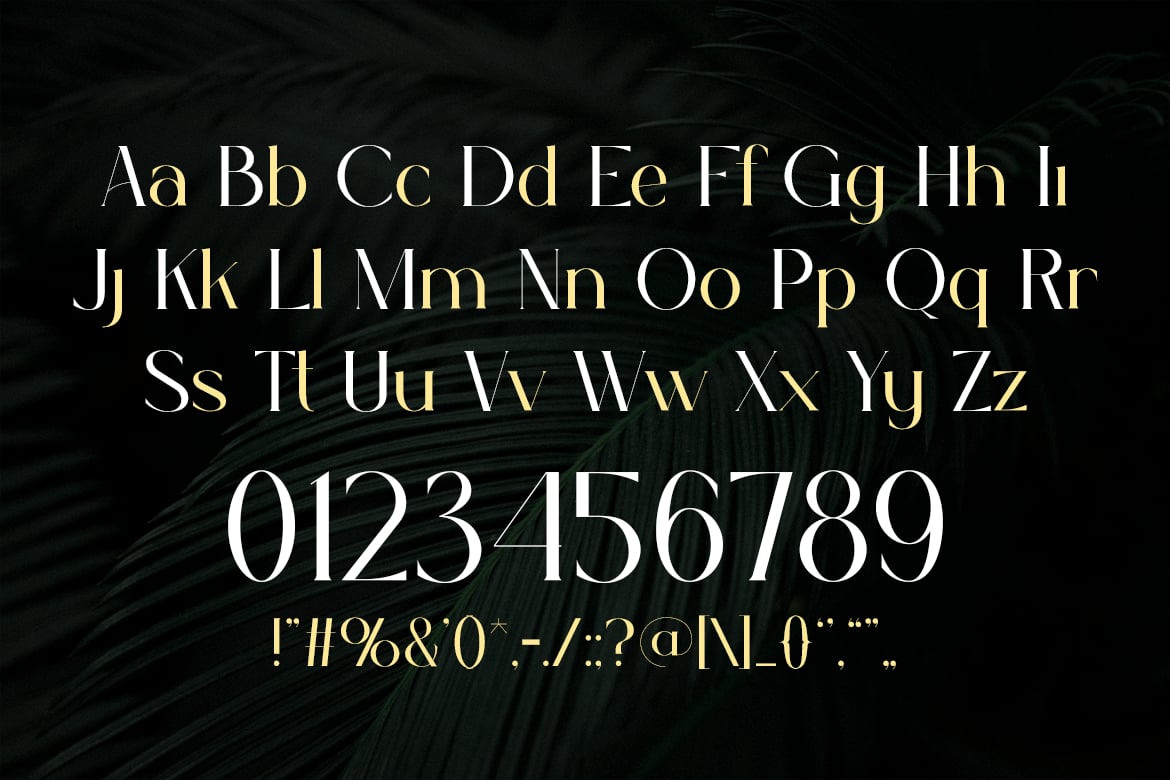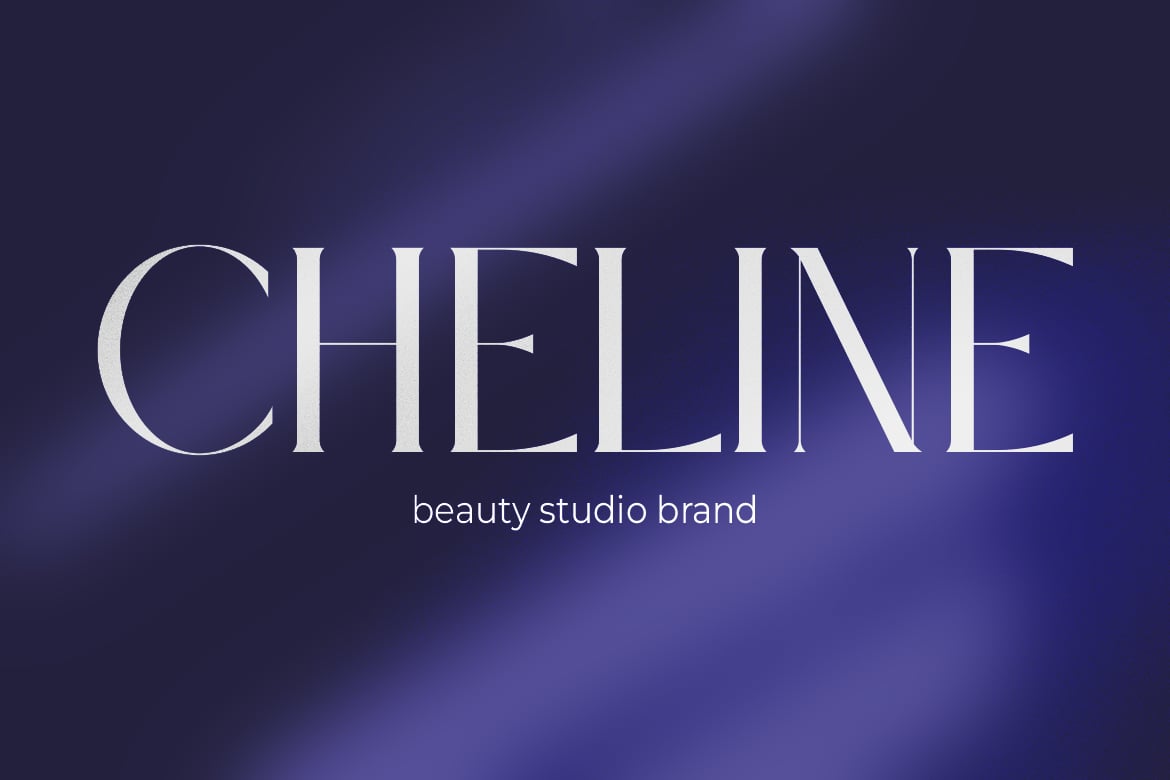
Selina – Modern Elegance Font
Selina – Modern Elegance Font is a versatile typeface ideal for various projects, including logos, branding, posters, blog headers, advertisements. The free version includes a full set of uppercase and lowercase letters, available in OTF format.